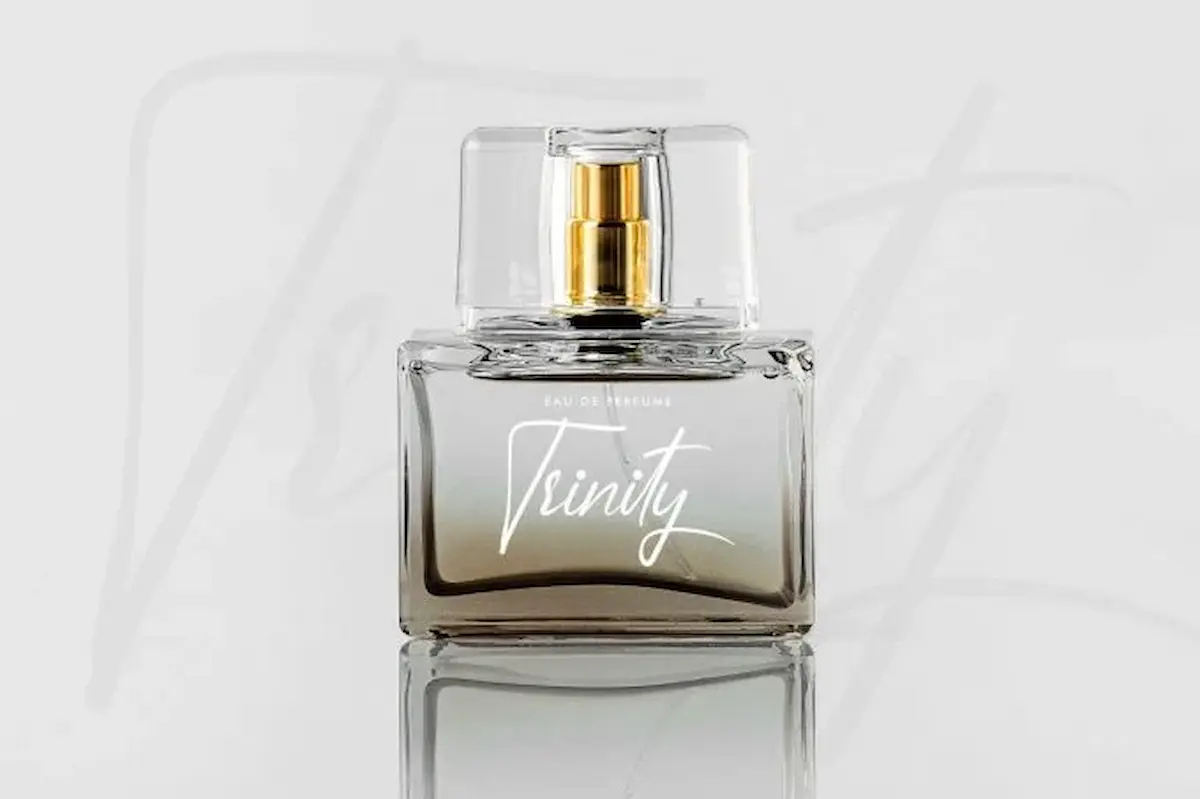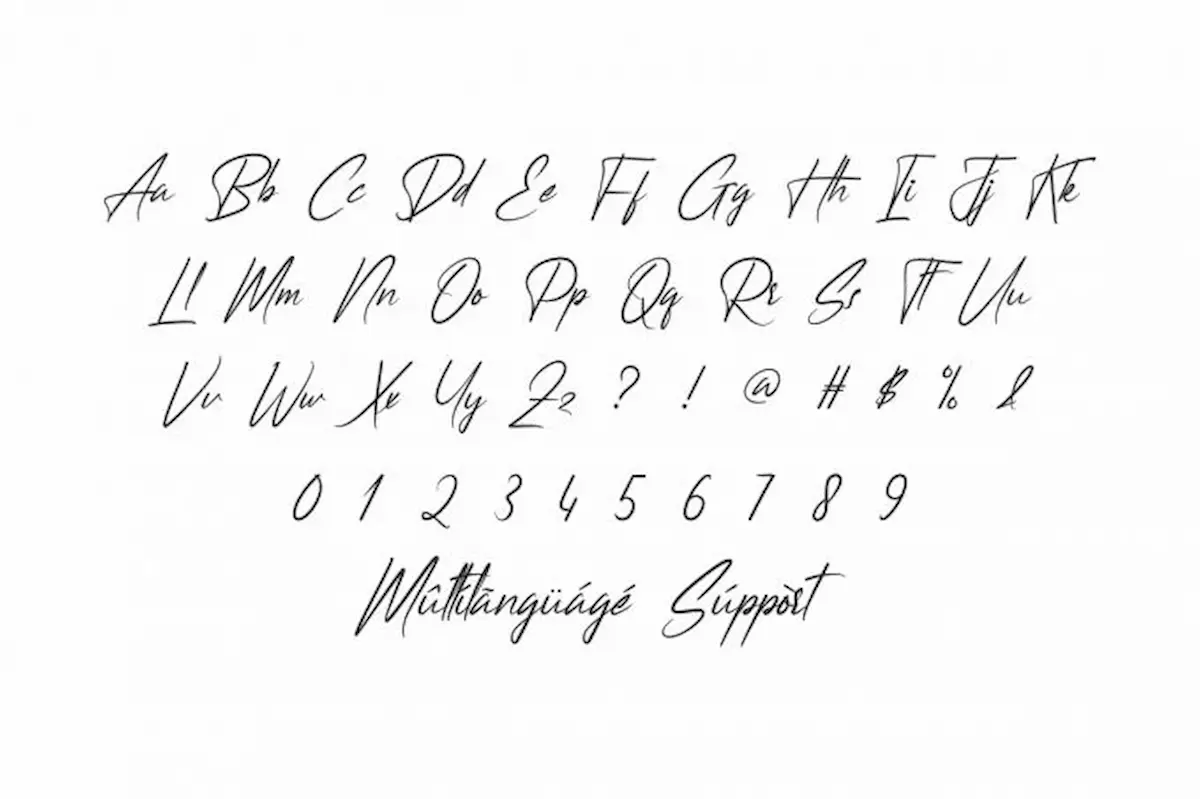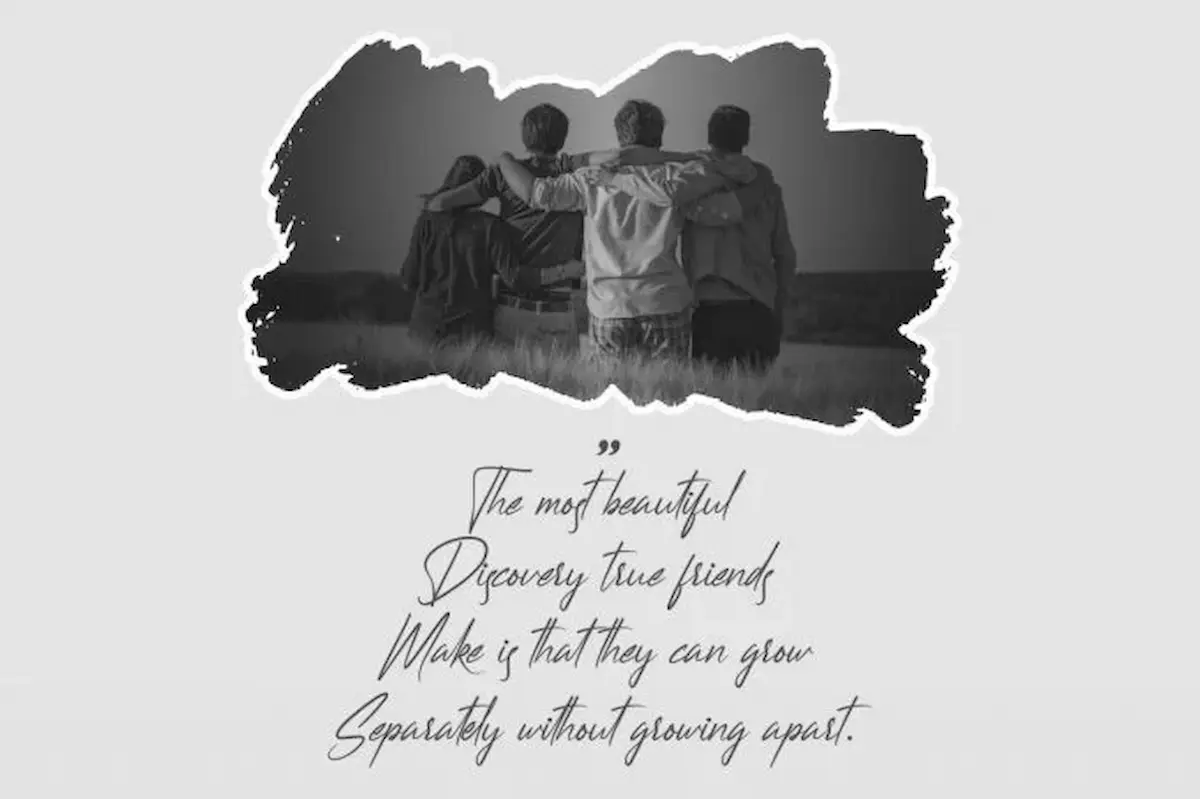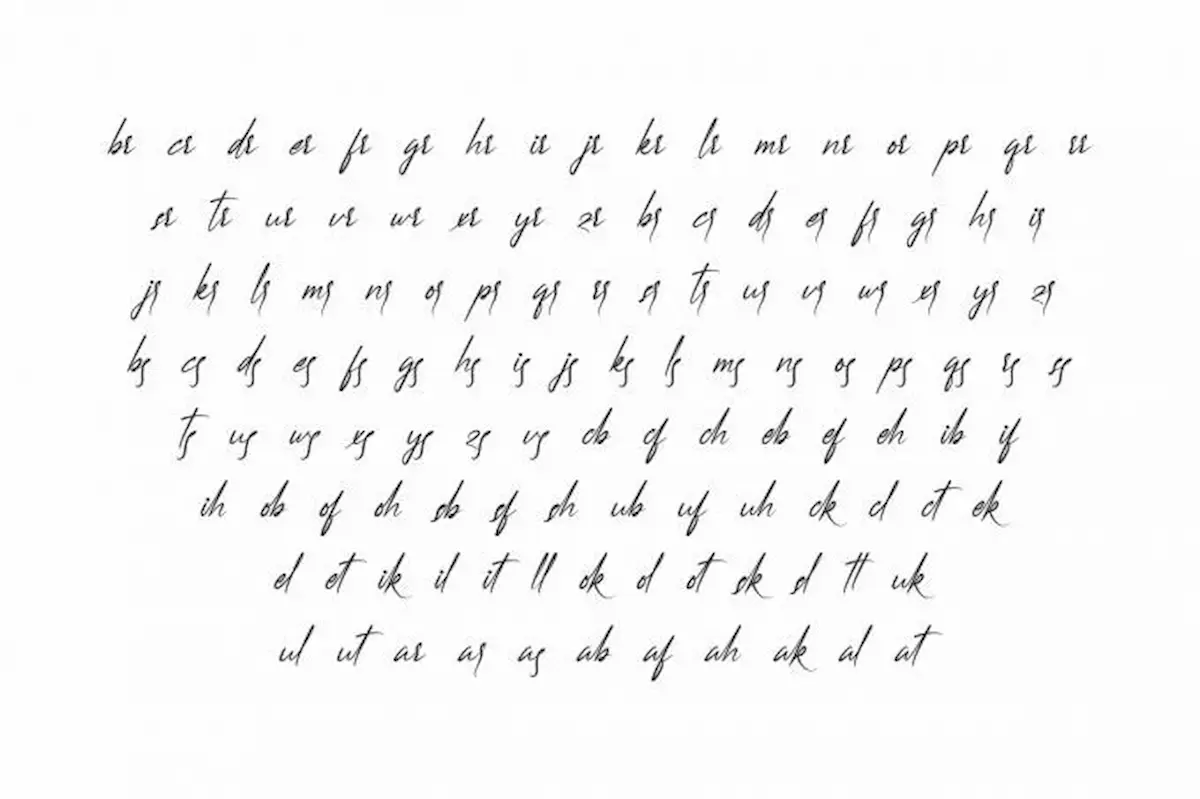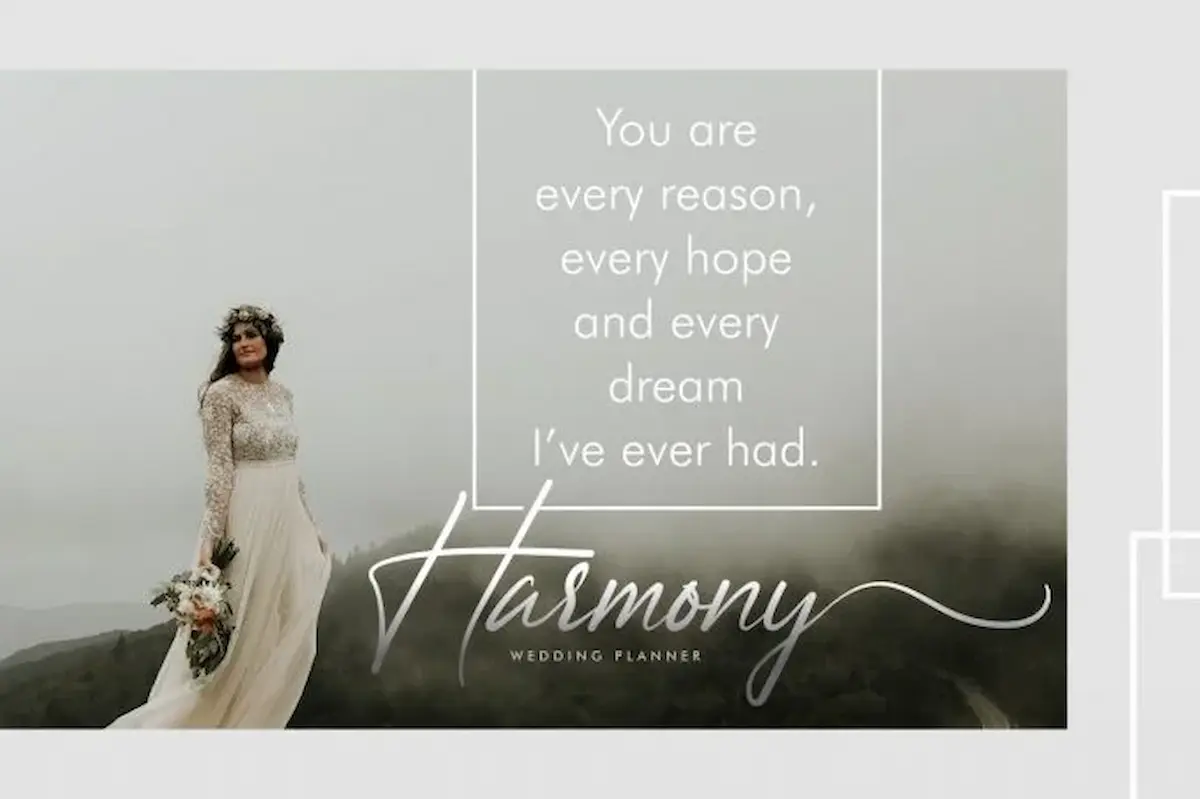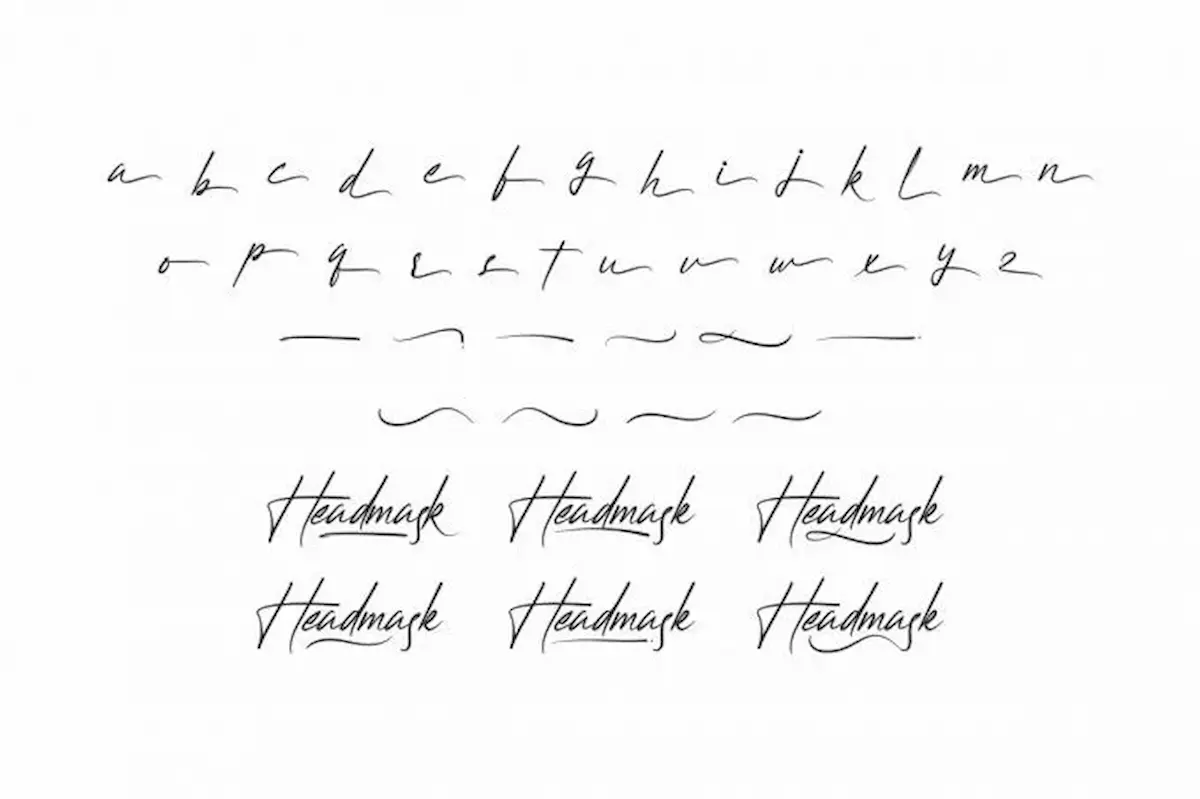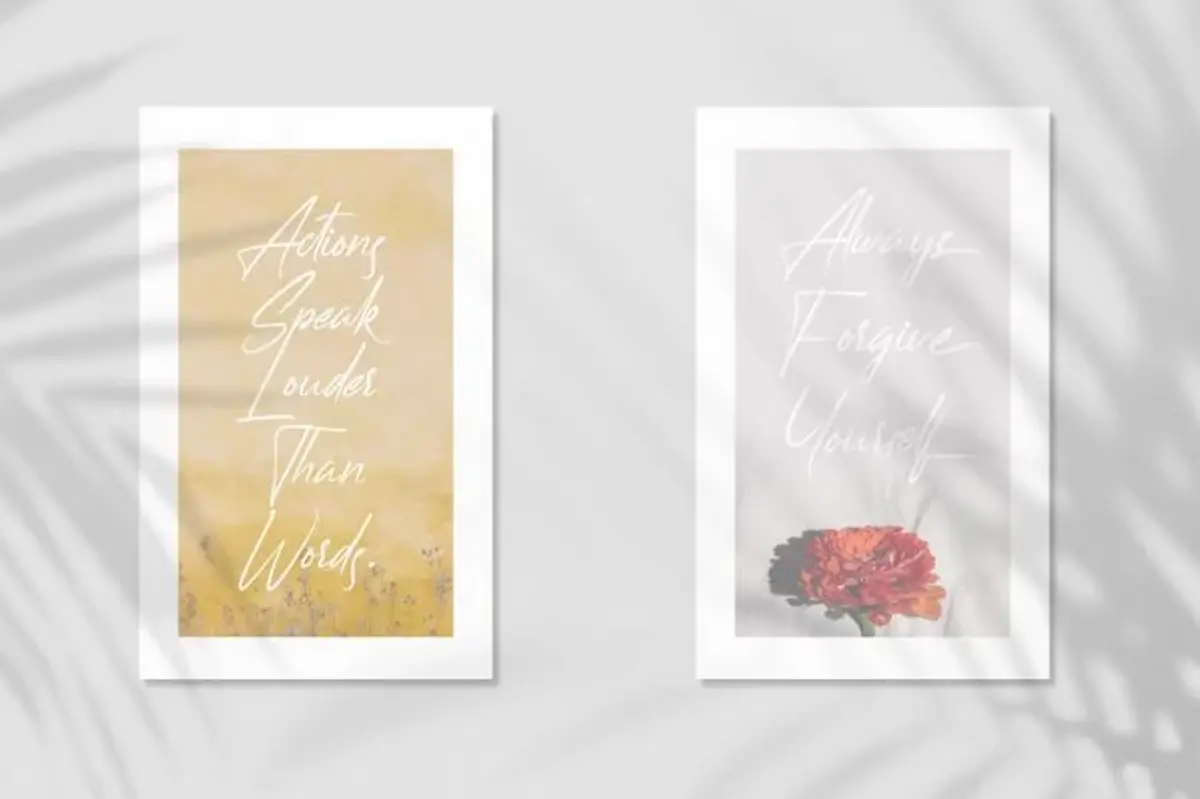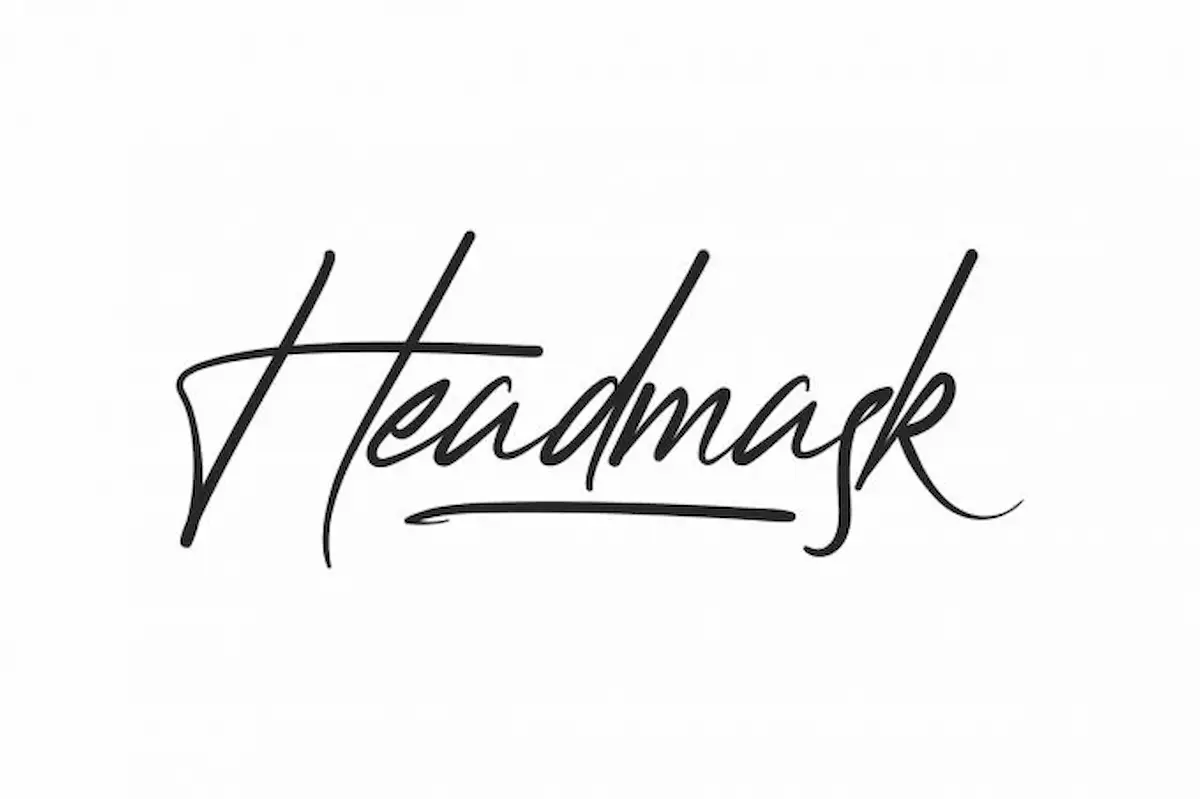
Headmask Font is a professional signature font by NihStudio. Headmask Font was Made for business, professional, video, photography etc
Headmask is a classic signature script font. It was made in Indonesia 2020 by Our Font Designer : Widi and Sarah.
Headmask signature font will be awesome for many projects (some require extended license) including : branding, logo, stationery, business card, signage, flyer, brochure etc. The theme style of the font is elegant, handmade, old, casual, vintage, stylish, sophisticated and classic brush style. The font will be match for this typeface: wedding, events, real estate, architect, law firm, florist, gardening, makeup artist, travel, hotel, musician etc